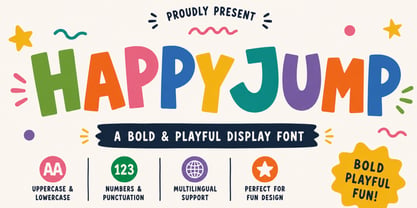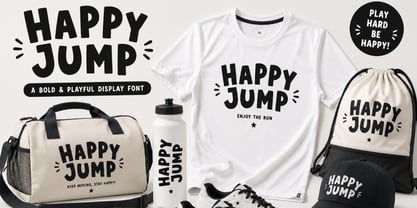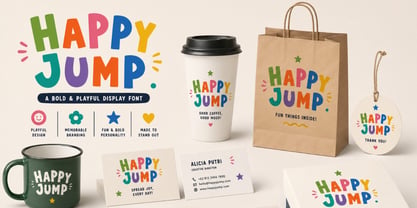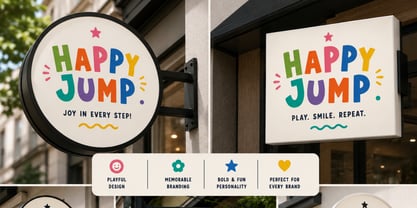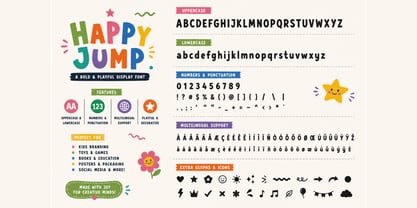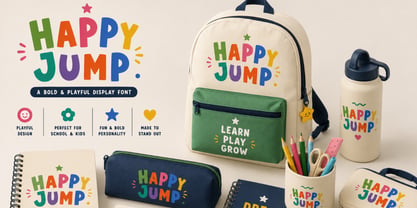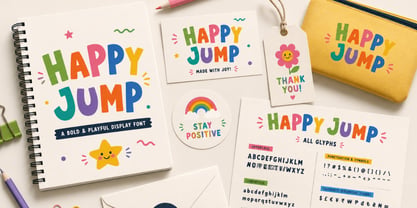
Happy Jump
Happy Jump – Bold & Playful Display Font
Introducing Happy Jump, a bold and playful display font bursting with joy, creativity, and vibrant personality. Designed with rounded letterforms and a cheerful handcrafted style, Happy Jump instantly adds a fun and friendly atmosphere to any design.
Whether you're creating children's books, toy packaging, educational materials, colorful branding, posters, or engaging social media content, Happy Jump helps your message stand out with confidence and charm.
Its clean shapes and lively character make it easy to use across both print and digital projects while keeping every design fun, approachable, and memorable.
Why You'll Love Happy Jump
• Bold and playful display font
• Friendly, cheerful, and eye-catching style
• Rounded handcrafted letterforms
• Easy to read for headlines and titles
• Perfect for colorful and fun designs
• Suitable for both print and digital projects
• Multilingual support
Perfect For
• Kids Branding
• Toy Packaging
• Children's Books
• Educational Materials
• School Projects
• Posters & Flyers
• Logo Design
• Branding & Visual Identity
• Social Media Graphics
• Greeting Cards
• Party Invitations
• Product Packaging
• Website Headers
• YouTube Thumbnails
• Creative Craft Projects
Font Features
• Uppercase & Lowercase
• Numbers & Punctuation
• Multilingual Support
Happy Jump is the perfect display font for designers who want to create cheerful, colorful, and memorable designs. From branding to educational projects, this font delivers a playful personality that makes every headline feel alive.